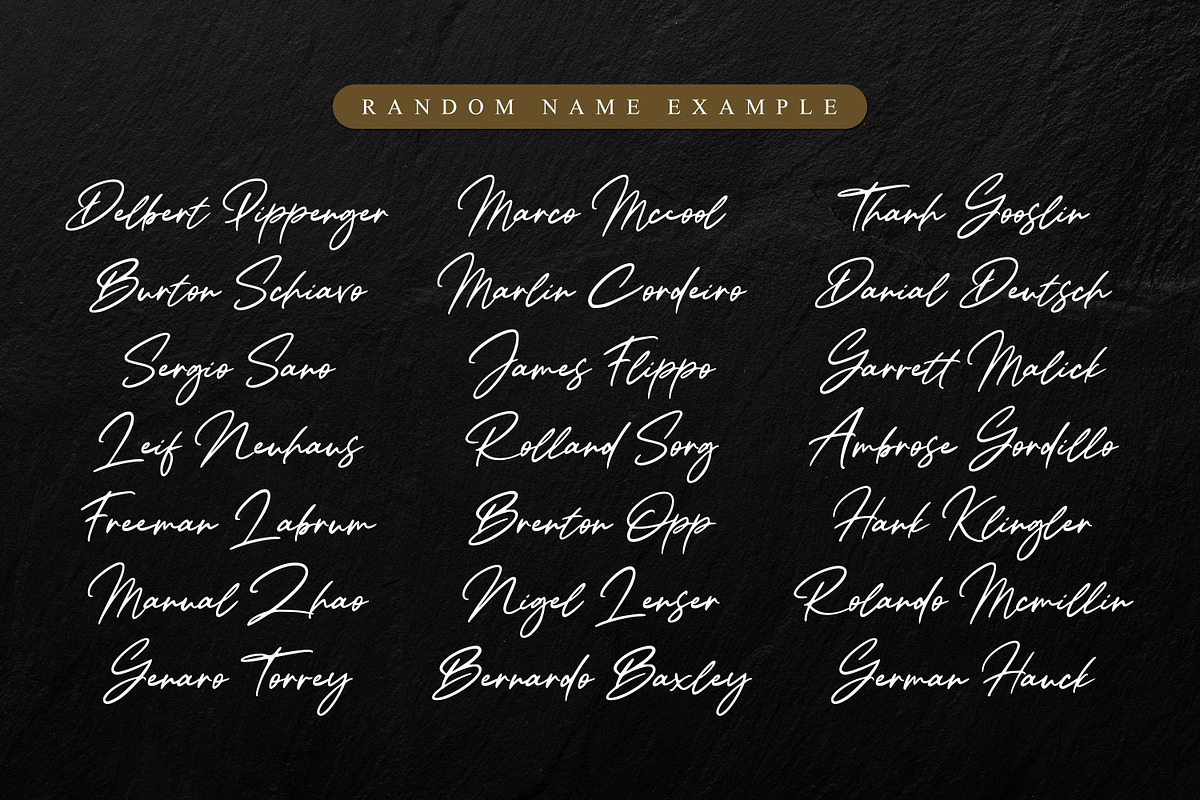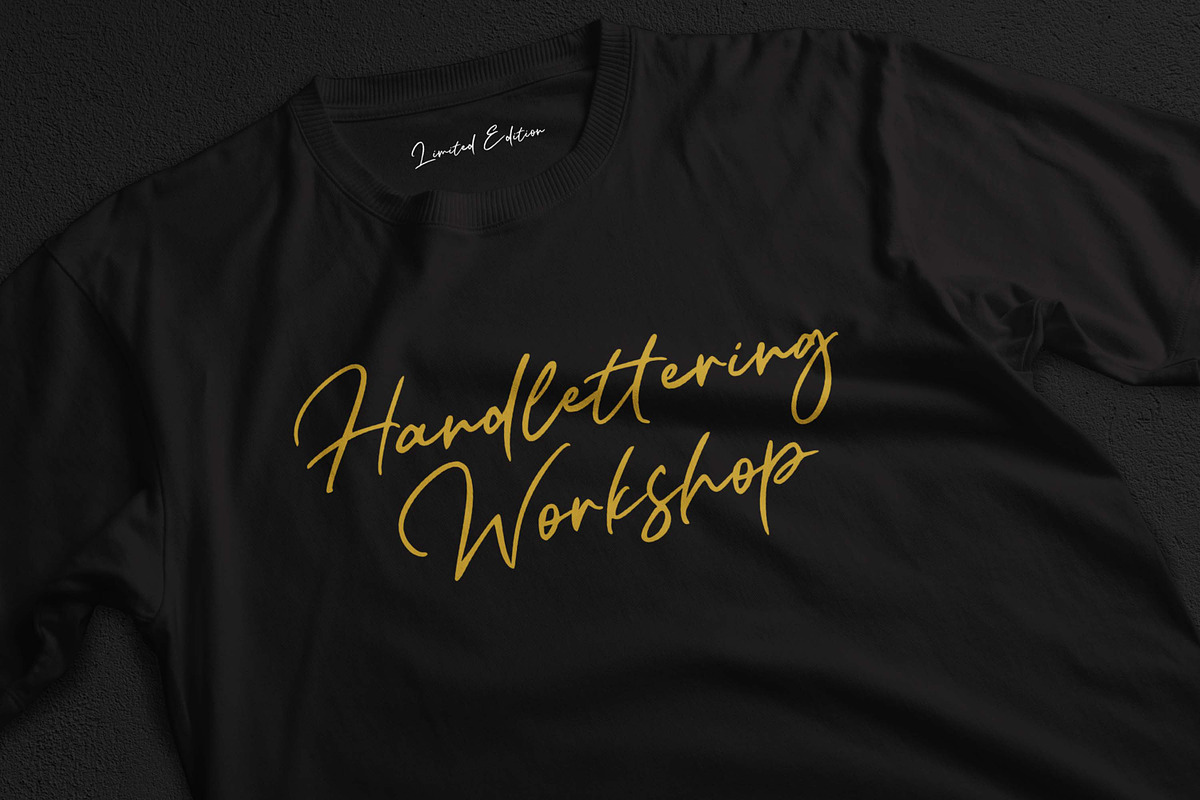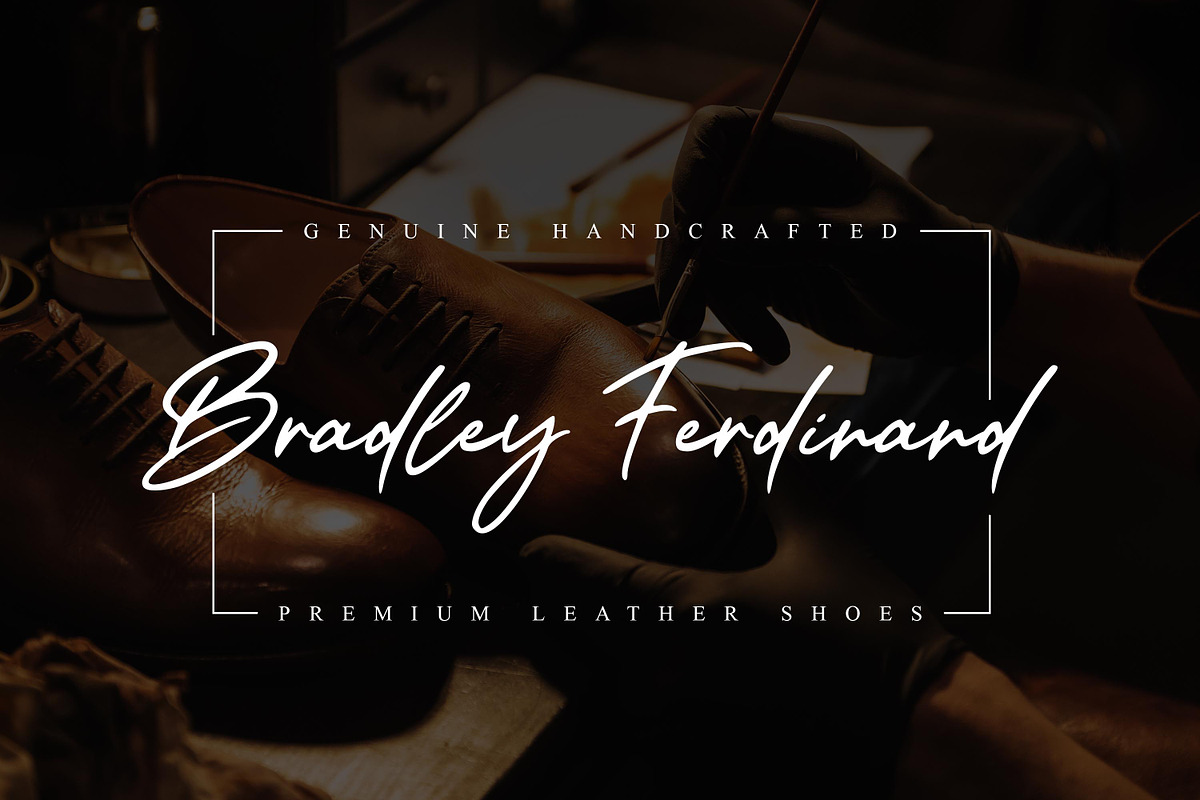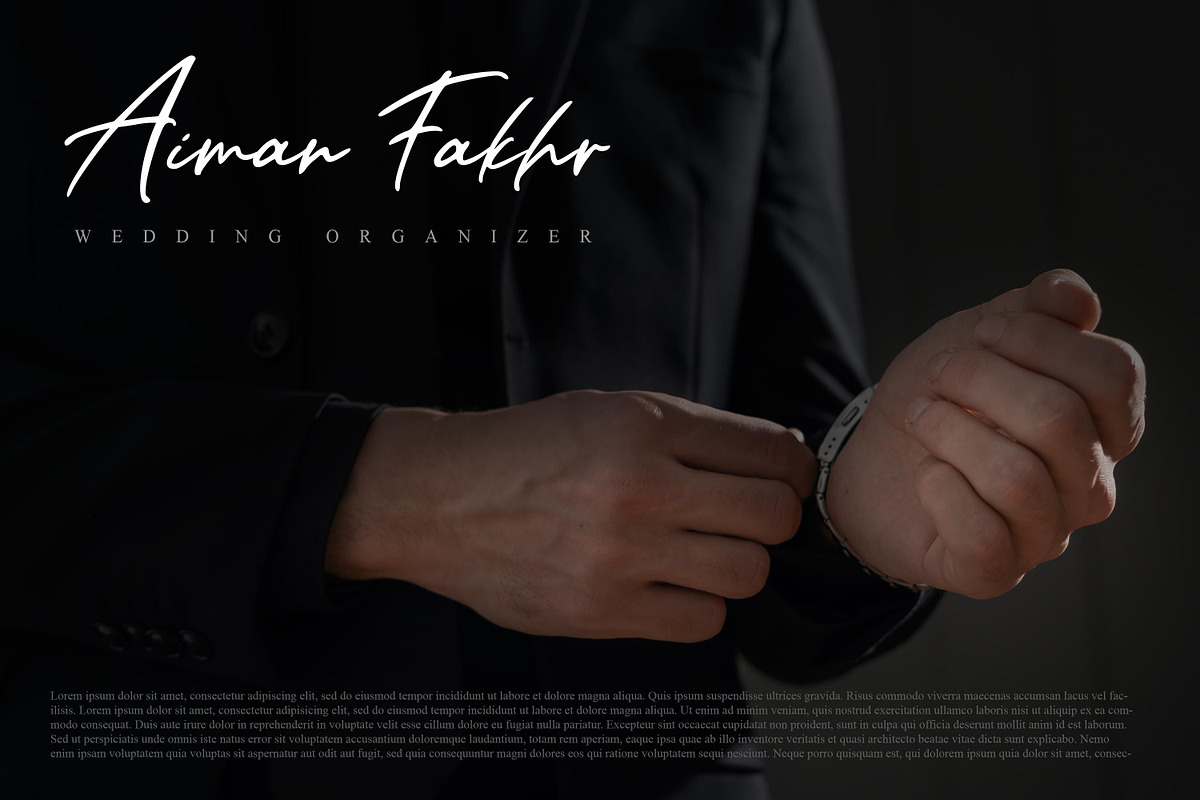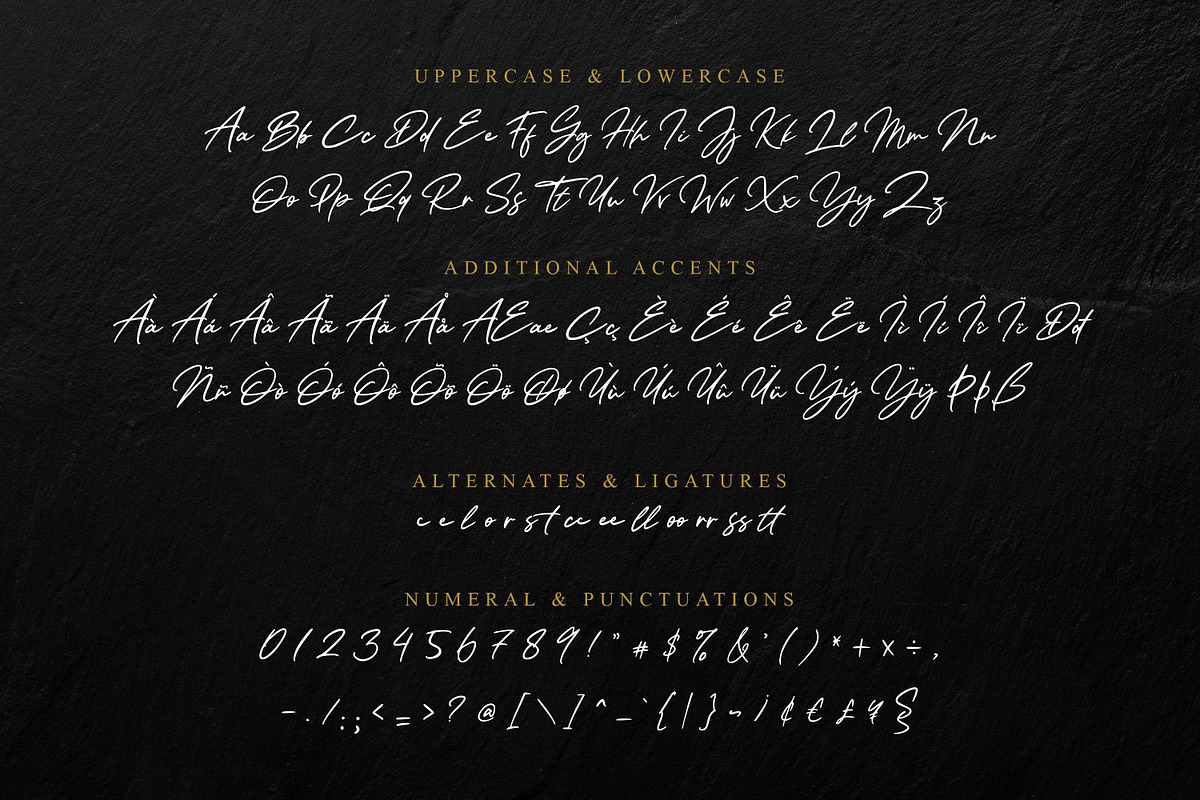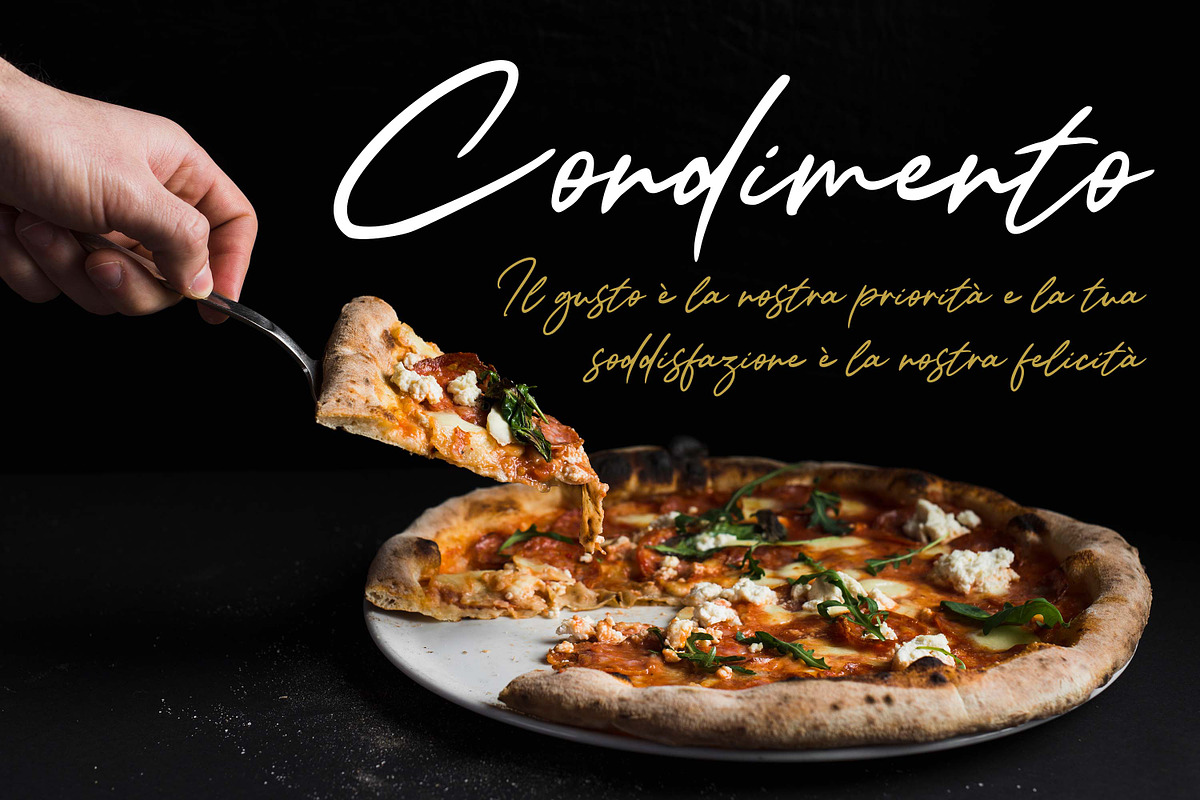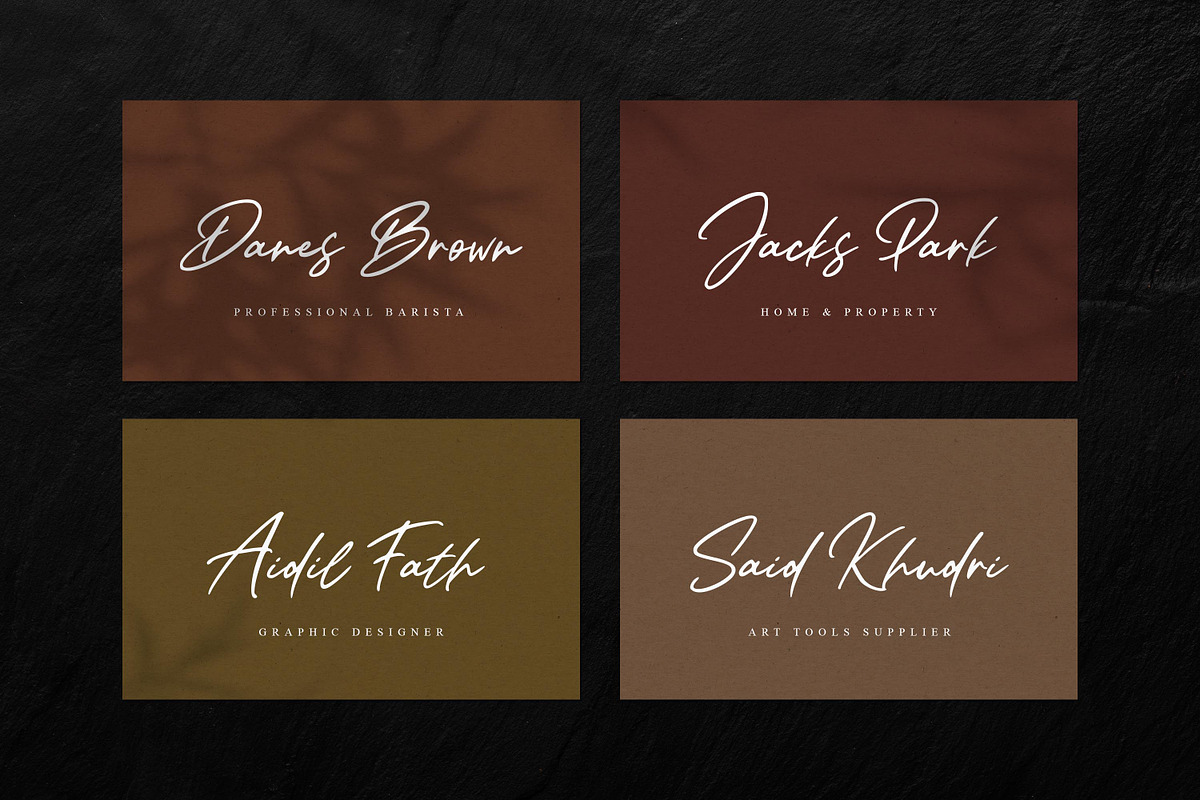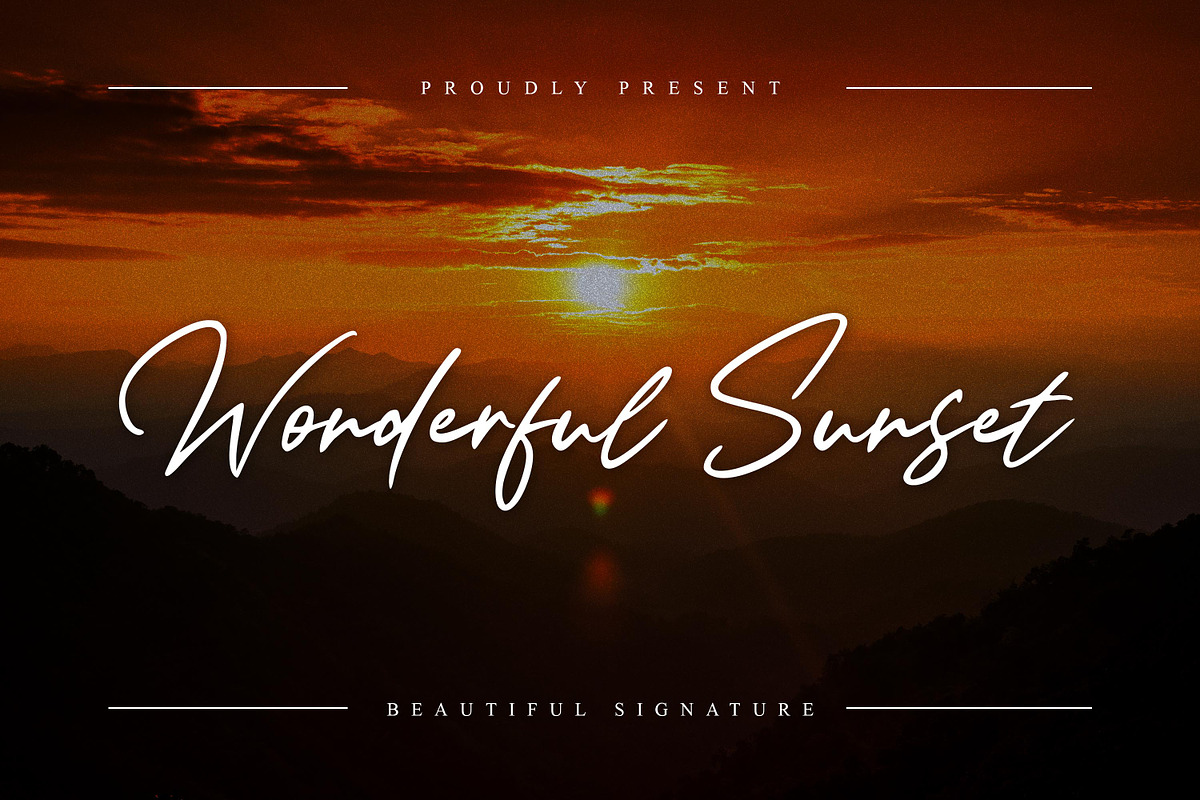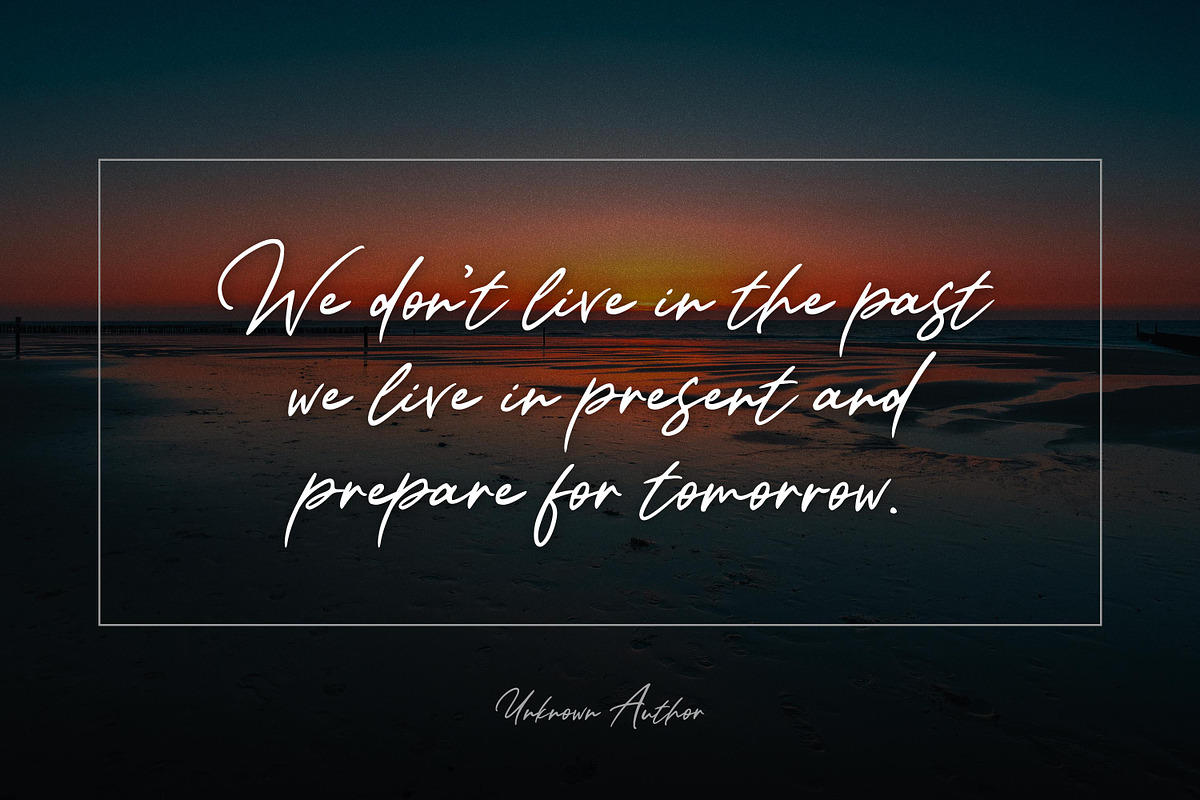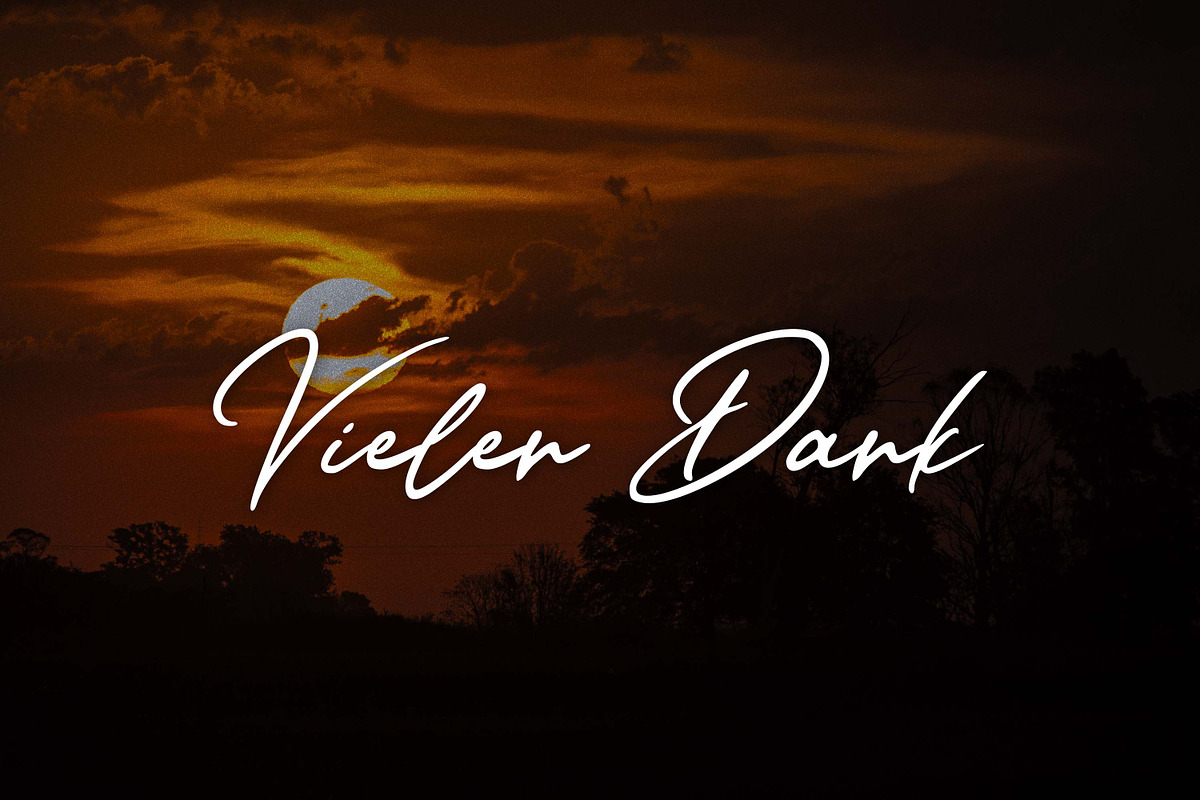
Wonderful Sunset - Beautiful Signatu
Wonderful Sunset - Beautiful Signature and classy style, this font is great for your creative projects such as watermark on photography, and perfect for logos & branding, photography, invitation, watermark, advertisements, product designs, stationery, wedding designs,label, product packaging, special events or anything that need handwritting taste.